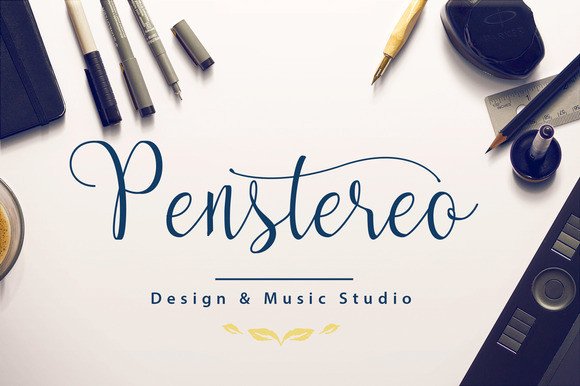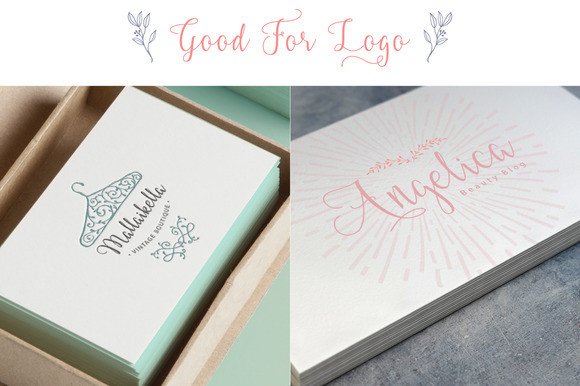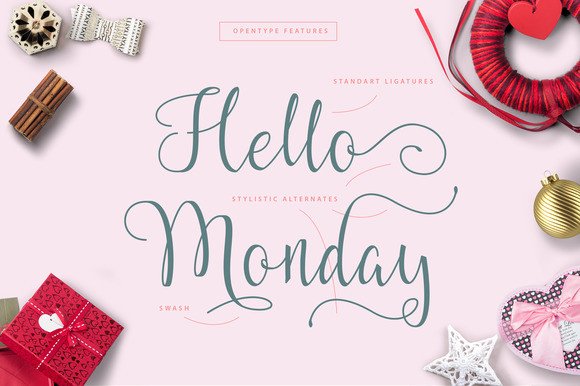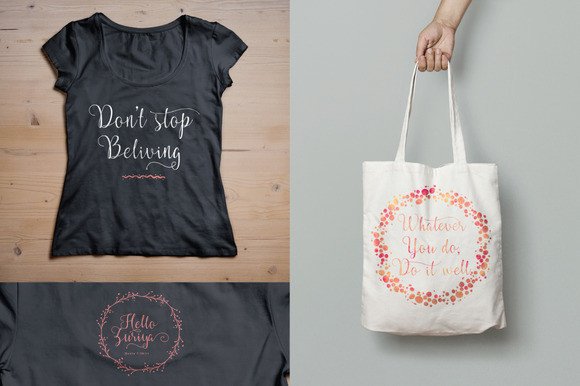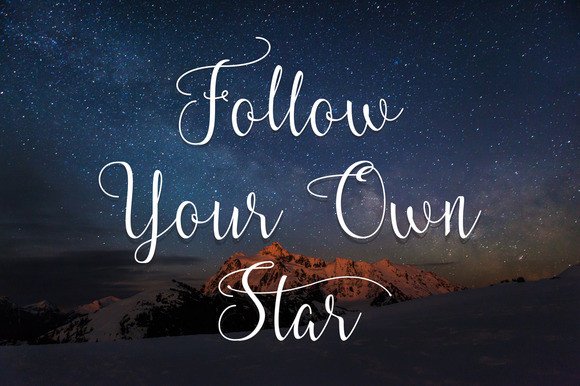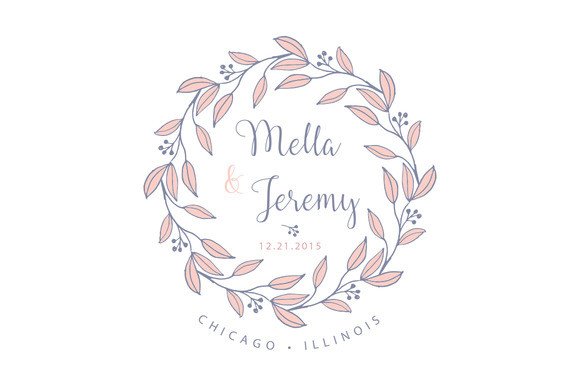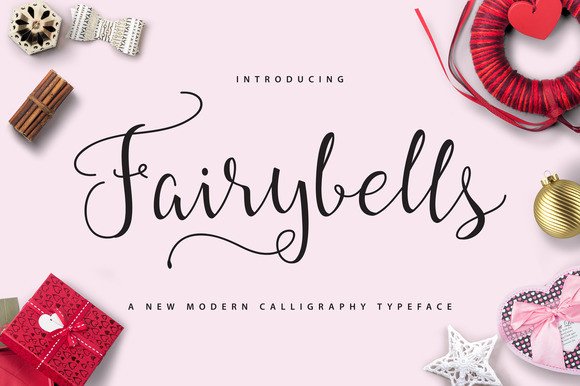
Introducing Fairybells Font: The Perfect Blend of Modernity and Elegance
In the world of typography, calligraphy typefaces have always been a popular choice for designers and crafters looking to add a touch of elegance and sophistication to their projects. Fairybells Font is a new, modern calligraphy typeface that combines the best of both worlds – a classic and elegant touch with a modern twist. In this article, we’ll take a closer look at Fairybells Font and explore its features, uses, and benefits.
A Modern Take on Classic Calligraphy
Fairybells Font is a beautifully crafted calligraphy typeface that exudes elegance and refinement. Its modern design makes it perfect for a wide range of applications, from headings and logos to wedding invitations and signage. The font’s classic touch ensures that it remains timeless and versatile, while its modern twist adds a fresh and contemporary feel.
Features of Fairybells Font
So, what makes Fairybells Font stand out from the rest? Here are some of its key features:
- Modern calligraphy design: Fairybells Font boasts a beautiful, modern calligraphy design that is both elegant and refined.
- Classic and elegant touch: The font’s classic touch ensures that it remains timeless and versatile, making it perfect for a wide range of applications.
- High-quality design: Fairybells Font is designed with high-quality craftsmanship in mind, ensuring that it looks great in any context.
- Wide range of uses: From headings and logos to wedding invitations and signage, Fairybells Font can be used for a wide range of purposes.
Uses of Fairybells Font
So, what can you use Fairybells Font for? The possibilities are endless! Here are some ideas to get you started:
- Headings and titles: Use Fairybells Font to add a touch of elegance to your headings and titles.
- Logos and branding: Create a beautiful and memorable logo with Fairybells Font.
- Wedding invitations: Add a touch of romance and sophistication to your wedding invitations with Fairybells Font.
- T-shirts and apparel: Use Fairybells Font to create beautiful and stylish t-shirts and apparel.
- Letterheads and stationery: Add a touch of elegance to your letterheads and stationery with Fairybells Font.
- Signage and displays: Use Fairybells Font to create eye-catching signage and displays.
- Labels and packaging: Add a touch of sophistication to your labels and packaging with Fairybells Font.
- News and magazines: Use Fairybells Font to add a touch of elegance to your news and magazine titles.
- Posters and flyers: Create eye-catching posters and flyers with Fairybells Font.
- Badges and awards: Use Fairybells Font to create beautiful and memorable badges and awards.
Benefits of Using Fairybells Font
So, why should you choose Fairybells Font for your next project? Here are some benefits of using this beautiful typeface:
- Elegance and sophistication: Fairybells Font adds a touch of elegance and sophistication to any project.
- Versatility: The font’s classic and modern design makes it perfect for a wide range of applications.
- High-quality design: Fairybells Font is designed with high-quality craftsmanship in mind, ensuring that it looks great in any context.
- Easy to read: The font’s clear and legible design makes it easy to read, even at small sizes.
| Font Name | Fairybells Font |
| Author | Ian Mikraz |
In conclusion, Fairybells Font is a beautiful and versatile calligraphy typeface that is perfect for designers and crafters looking to add a touch of elegance and sophistication to their projects. With its modern design, classic touch, and high-quality craftsmanship, Fairybells Font is sure to become a popular choice for a wide range of applications. Whether you’re creating headings, logos, wedding invitations, or signage, Fairybells Font is the perfect choice.